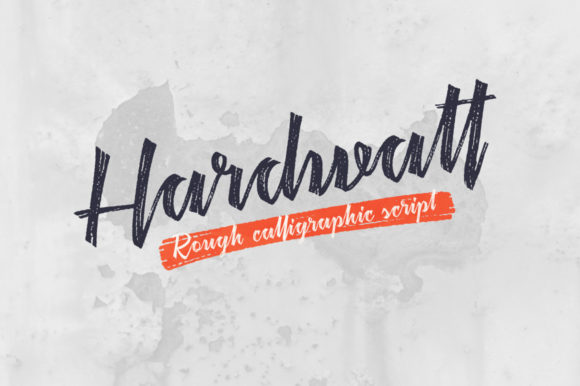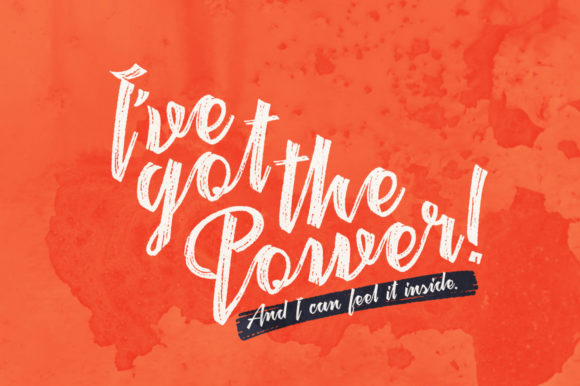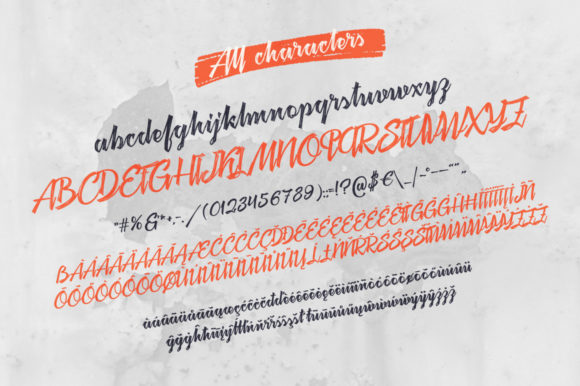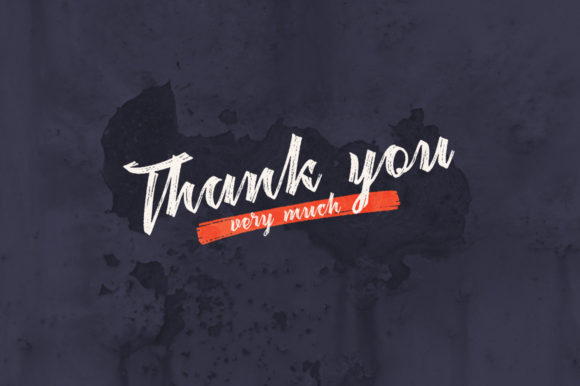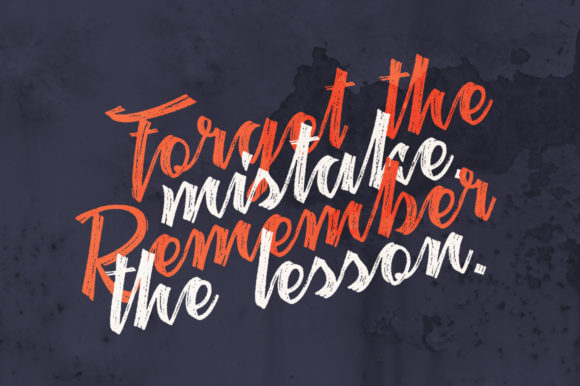
Hardwatt Font
About Hardwatt Font
Hardwatt is a trendy and beautiful handwritten font. Whether you’re using it for crafting, digital designing, presentations or greeting cards making, it’s perfect!